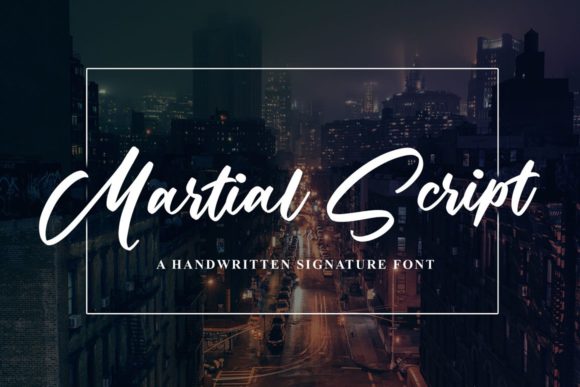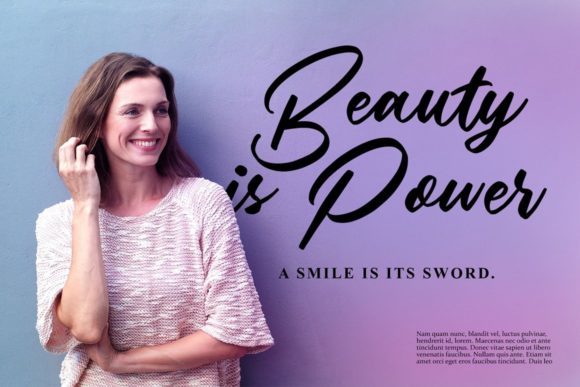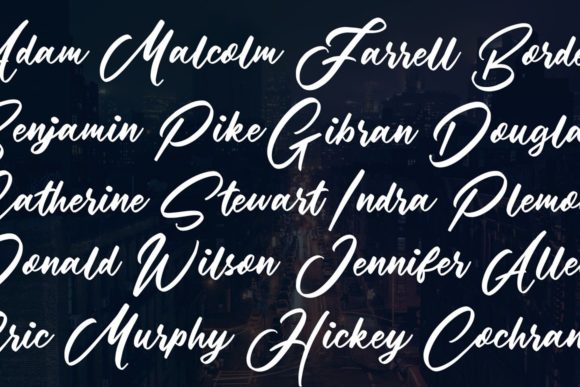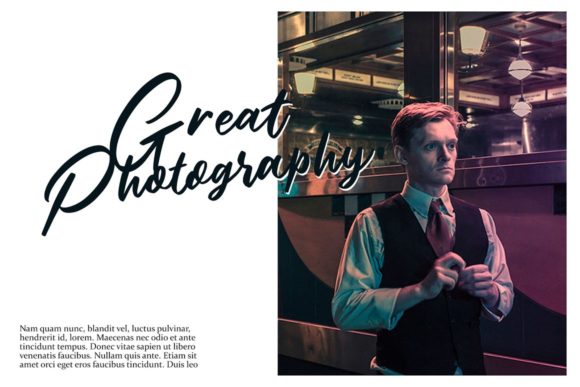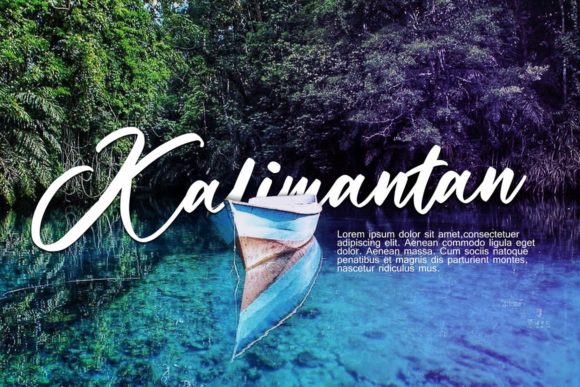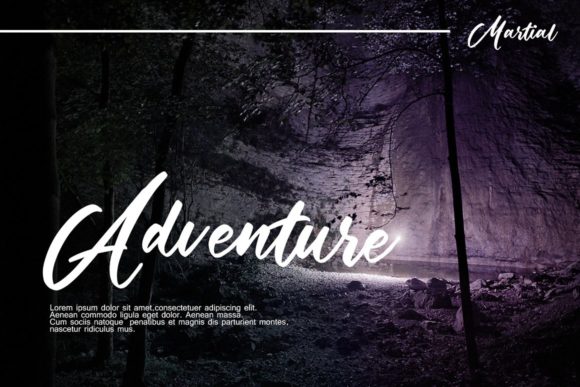
Martial Script Font
About Martial Script Font
Martial Script is a bold and modern handwritten font. Its natural and unique style makes it incredibly fitting to a large pool of designs. The only limit is your imagination!